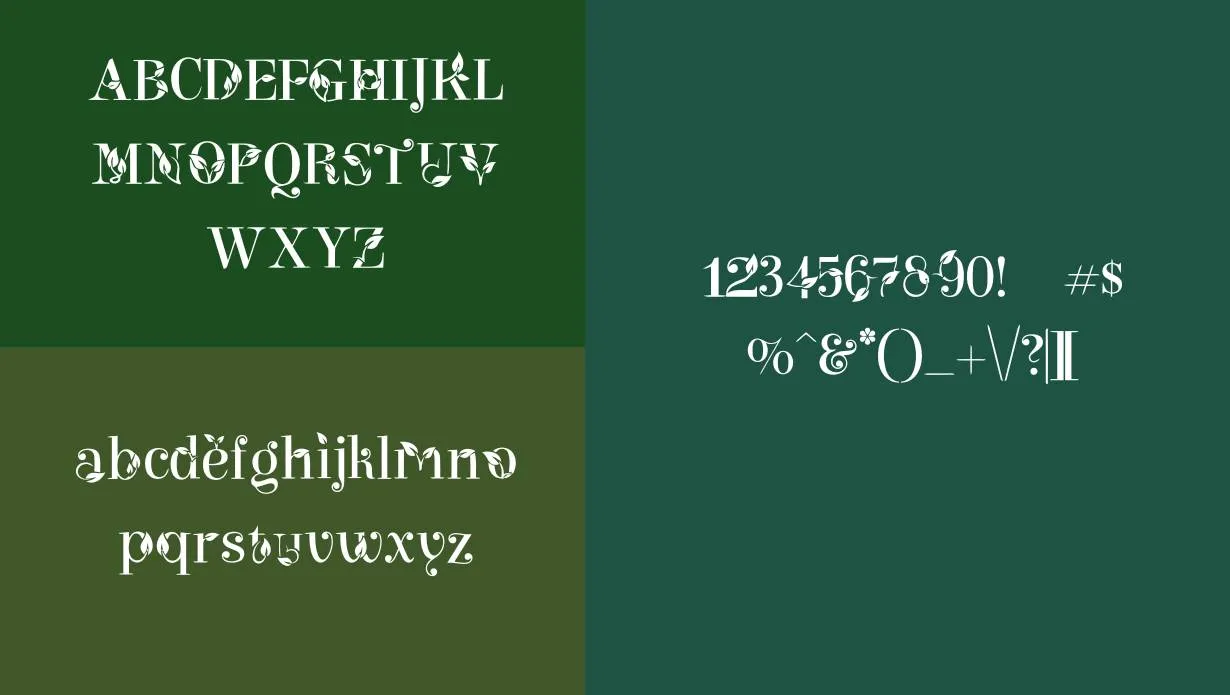
Leafy Font is like a stroll through a lush garden, each letter a leaf on a tree. It adds a natural touch to your words, as f they were growing right on the page. When you use Leafy Font, your writing becomes a green oasis, calm and refreshing.
It’s like a gentle breeze rustling through leaves, making your words feel alive and connected to the beauty of nature. Pick Leafy Font for a writing style that’s as fresh as a morning walk in the park.
Name | Leafy Font |
Designer | Anindita Ahmed |
Style | Serif |